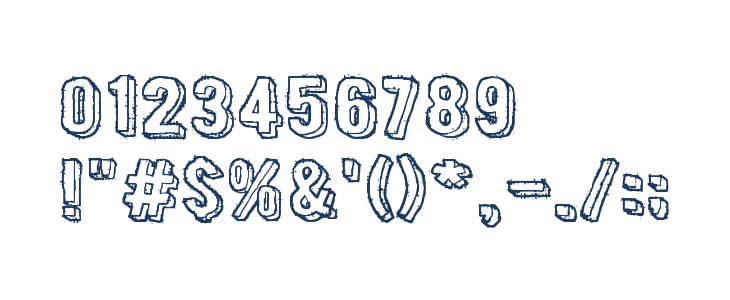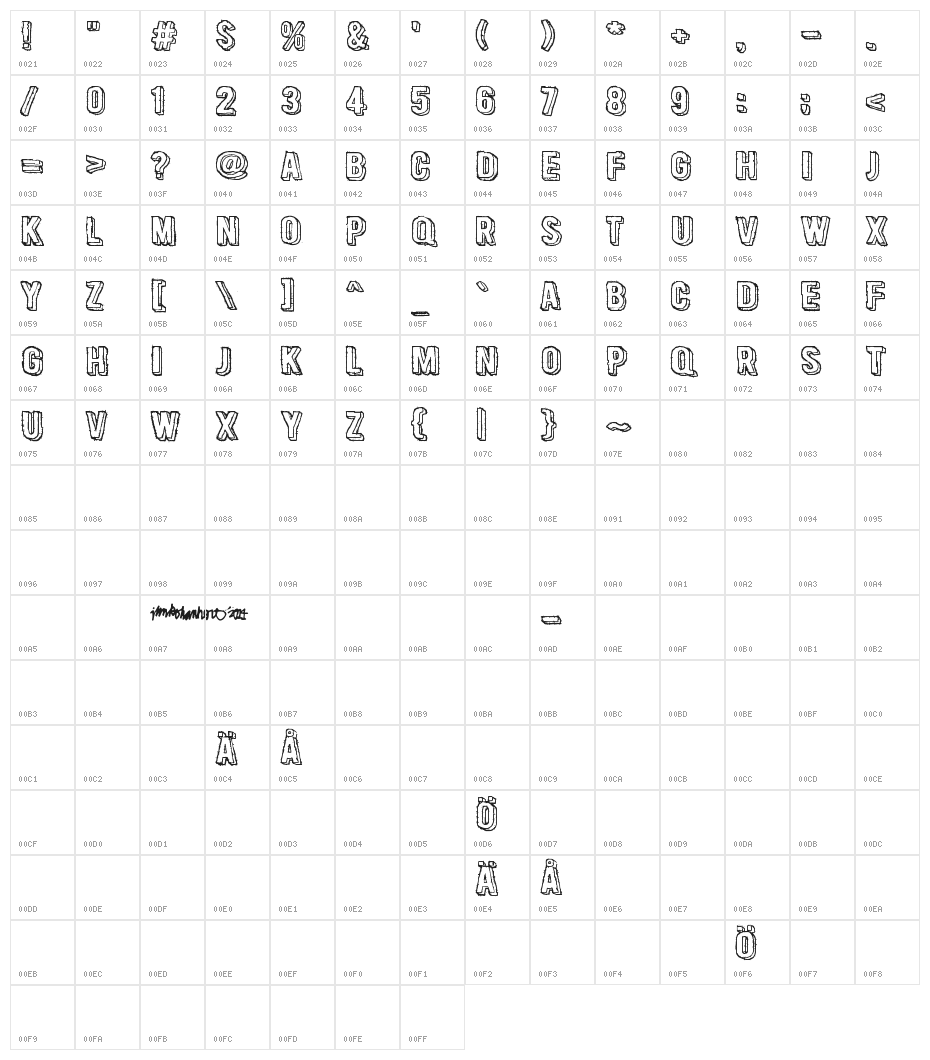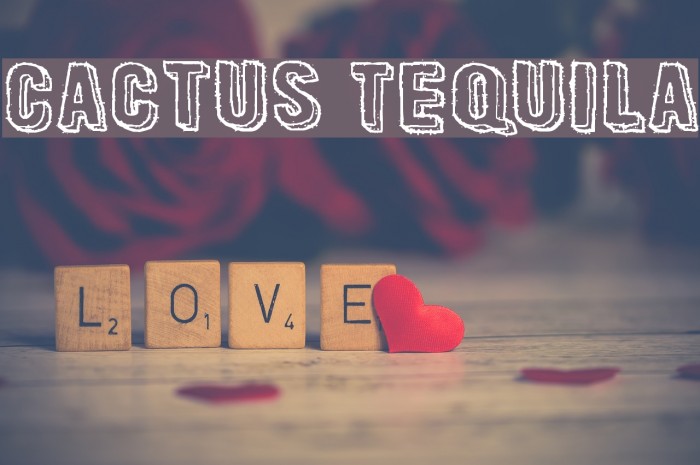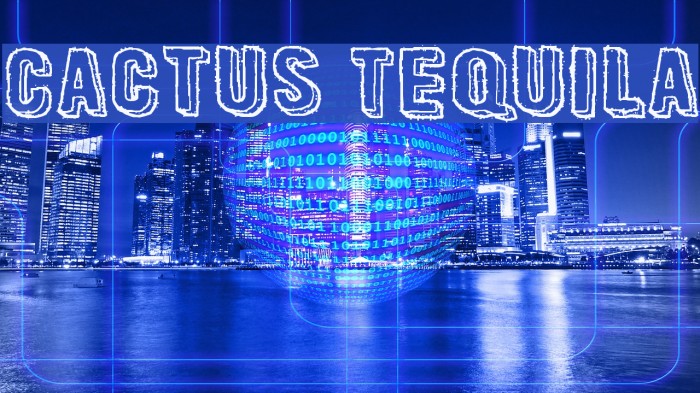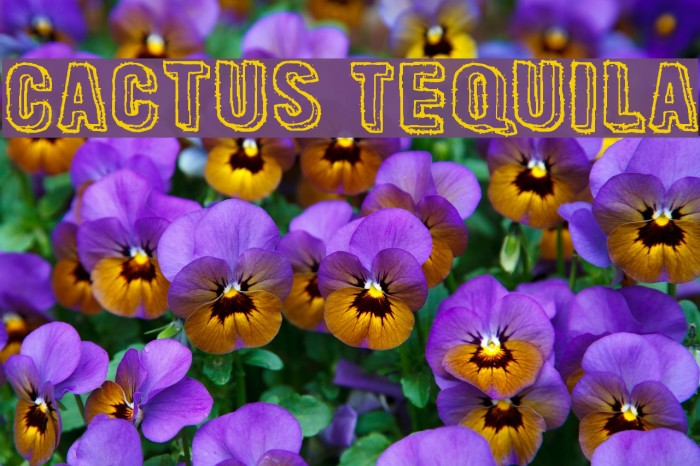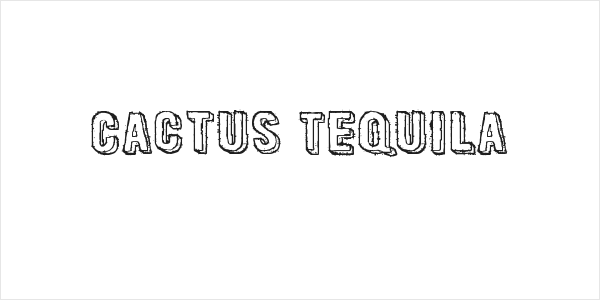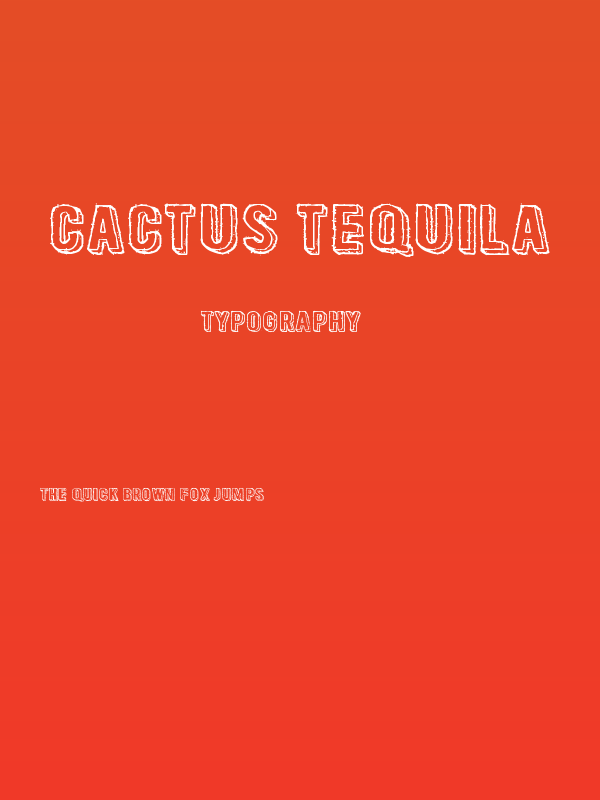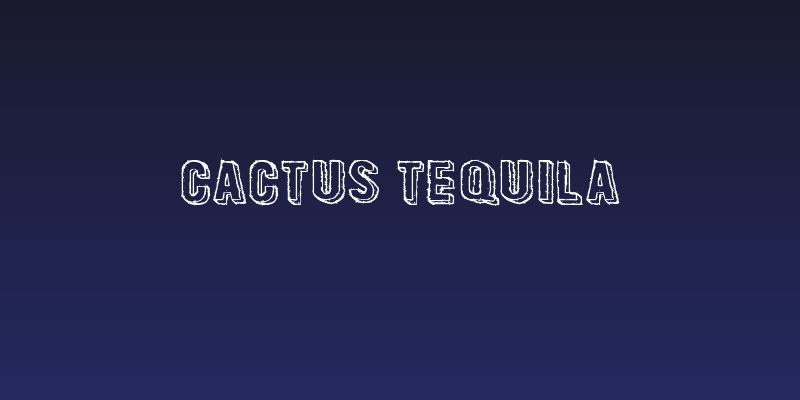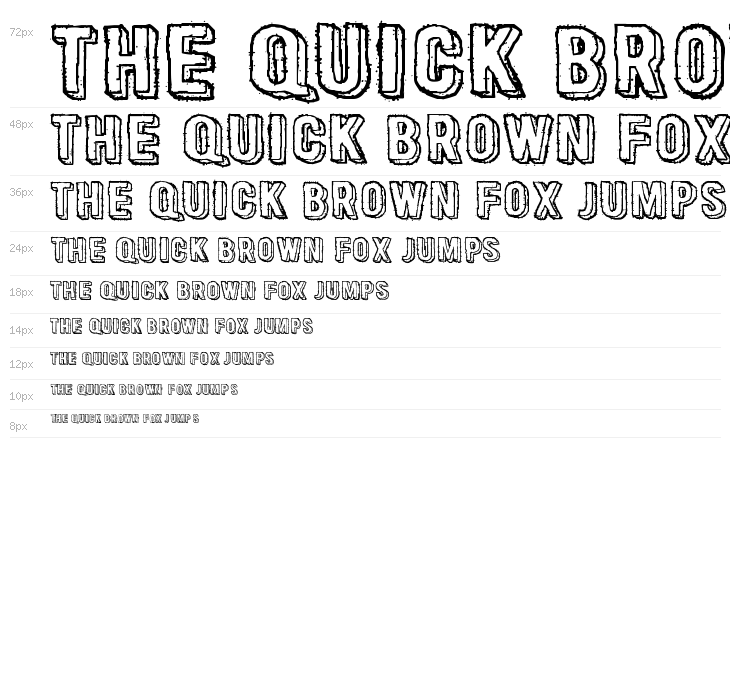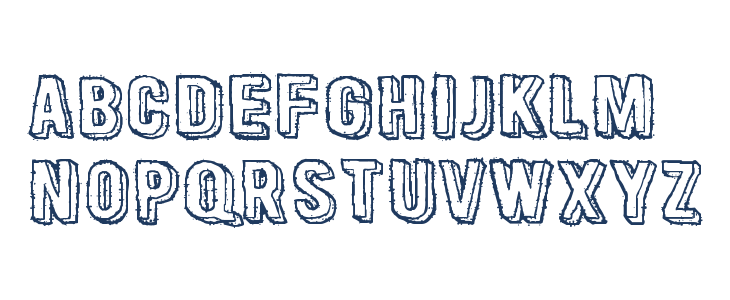
Cactus Tequila Font
Cactus Tequila Description
This font features a bold, rugged style with a textured, hand-drawn appearance. Each character is outlined with a rough, sketch-like quality, giving it a distinctive, organic feel. The uppercase and lowercase letters maintain a consistent width, while the numbers and special characters follow the same design principles. The font's unique texture and bold presence make it stand out, ideal for projects requiring a strong visual impact. Its playful yet assertive style is reminiscent of vintage and rustic themes, perfect for creative and artistic endeavors.
| Overall Style | Vintage, Rustic, Artistic |
| Proposed Projects | Ideal for posters, branding, packaging, and creative design projects that require a bold, vintage touch. |